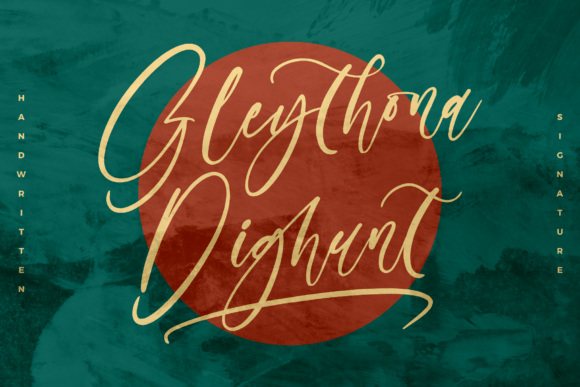
Prepare yourself to be mesmerized by Gleythona Dighunt, a script font that exudes an aura of elegance and sophistication, meticulously crafted by the talented designers at Glorytype Studio. This font is an artistic masterpiece, designed to transform your creative visions into breathtaking works of art.
With its enchanting curves and graceful strokes, Gleythona Dighunt holds the power to elevate your designs to new heights. Its delicate yet confident presence adds a touch of refinement to any project, making it the perfect choice for those seeking fonts for Instagram, calligraphy scripts for DIY projects, or any endeavor that demands a touch of elegance.
Imagine your words dancing across the page, imbued with the charm and allure of Gleythona Dighunt. This font has the uncanny ability to capture the essence of your message, conveying emotions and ideas with unmatched grace. Whether you're crafting heartfelt letters, captivating social media posts, or designing stunning logos, Gleythona Dighunt will elevate your words and leave a lasting impression on your audience.
Unleash your creativity and let Gleythona Dighunt guide you on a journey of artistic exploration. Its versatility knows no bounds, adapting seamlessly to a myriad of design styles and themes. From whimsical invitations to sophisticated branding materials, Gleythona Dighunt possesses the versatility to bring your creative visions to life.
Experience the magic of Gleythona Dighunt and witness the transformation of your creative projects into captivating works of art. Its enchanting allure will leave you spellbound, inspiring you to push the boundaries of your imagination and create designs that resonate with beauty and elegance. Embrace the artistry of Gleythona Dighunt and elevate your creative journey to new heights.